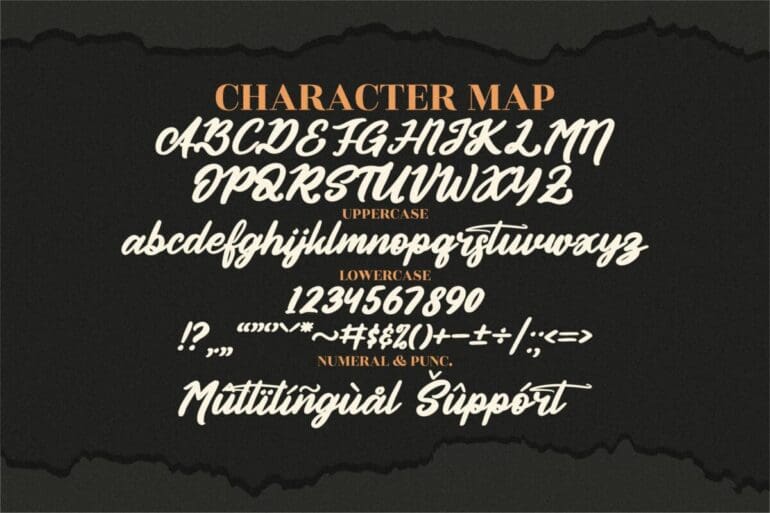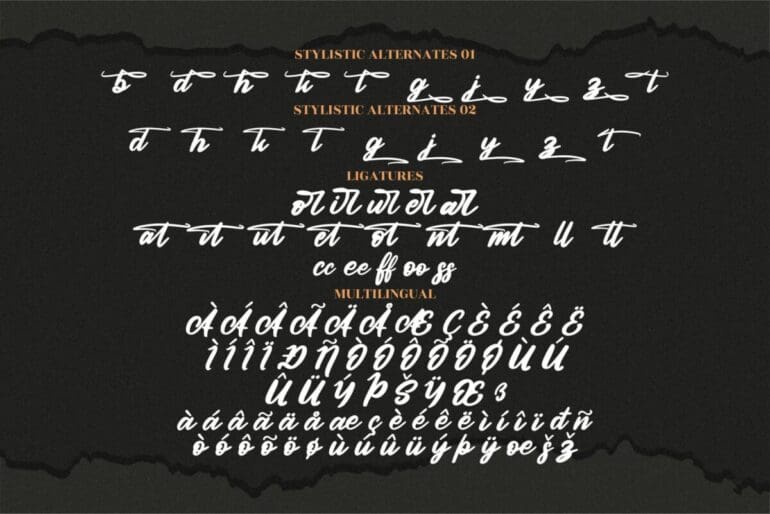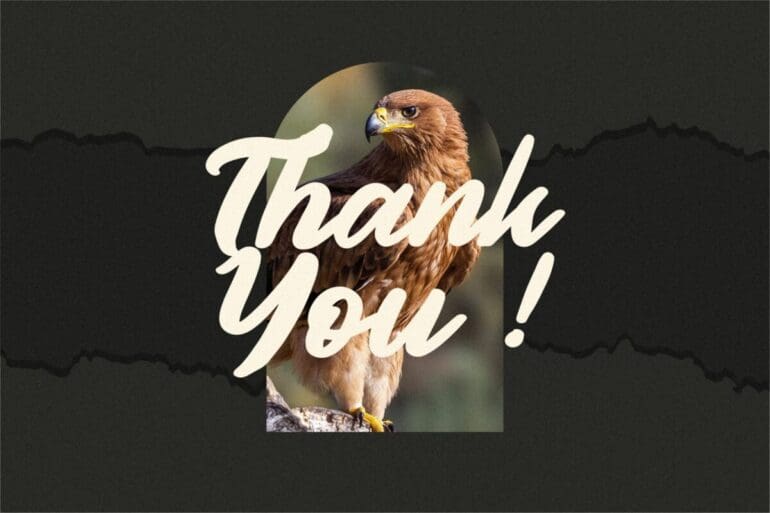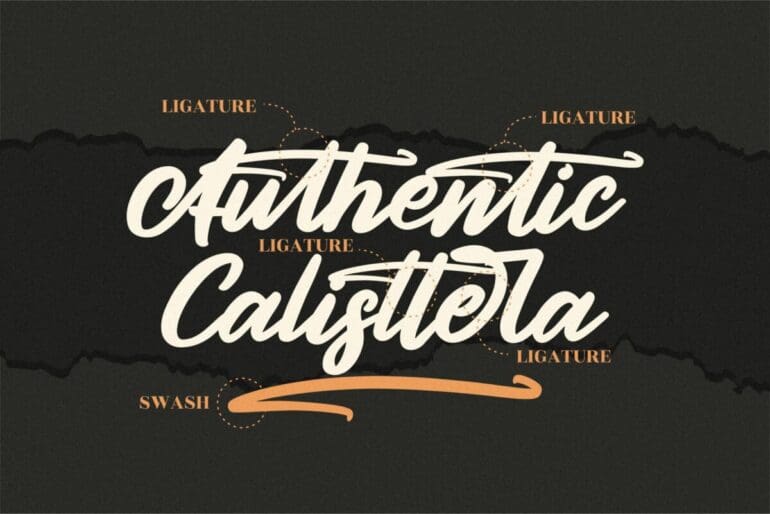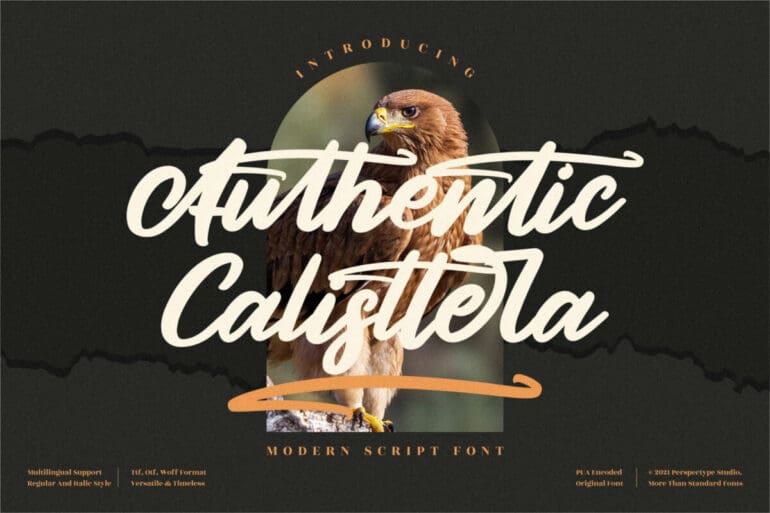
Authentic Calisttera Script Font
Authentic Calisttera is a modern and bold Script Font. It looks beautiful on a variety of designs requiring a personalized style, such as wedding invitations, thank you cards, weddings, greeting cards, logos, and so on.